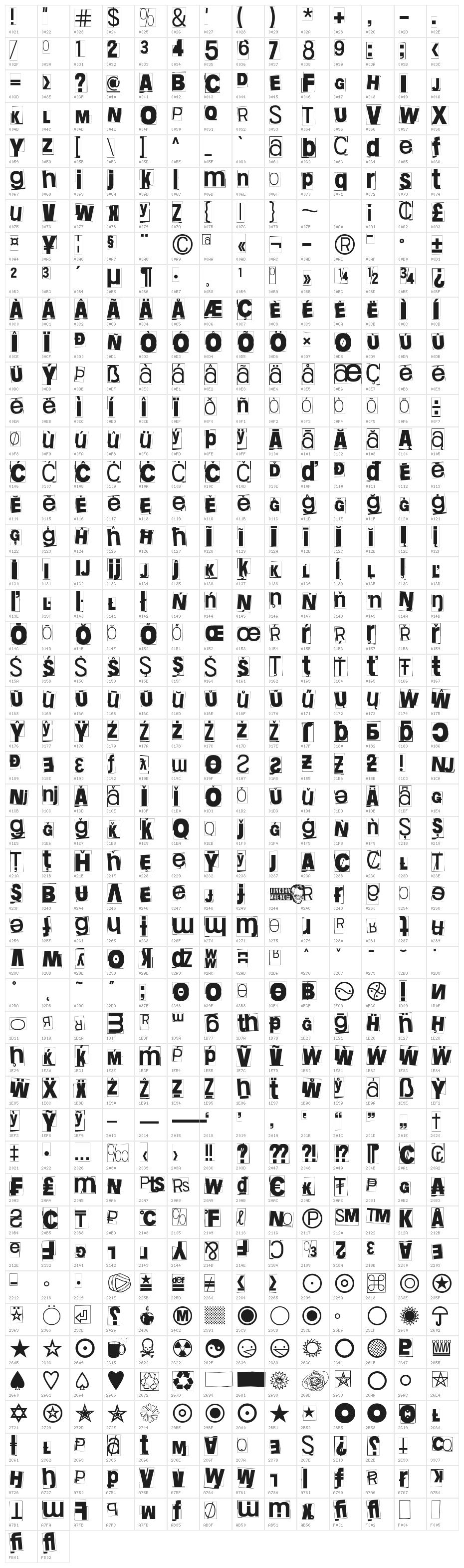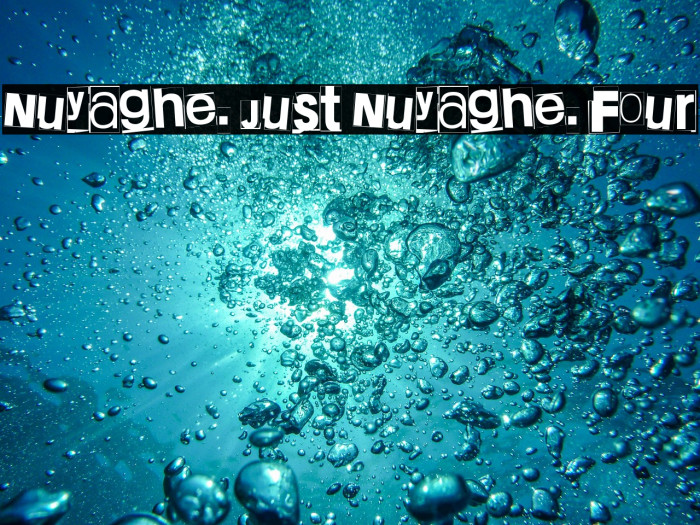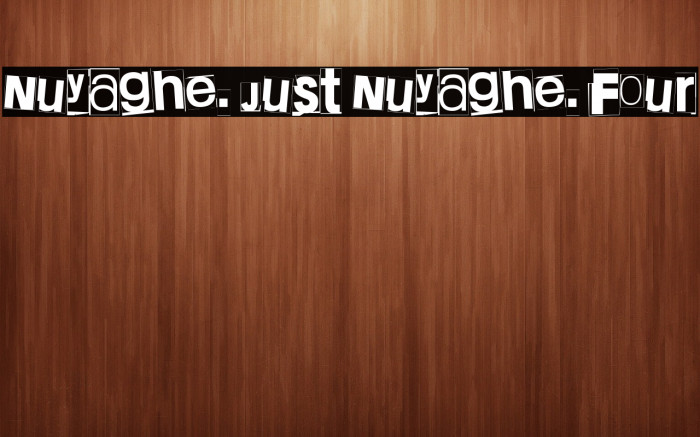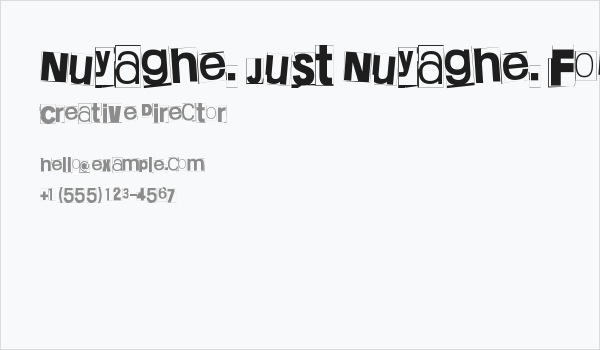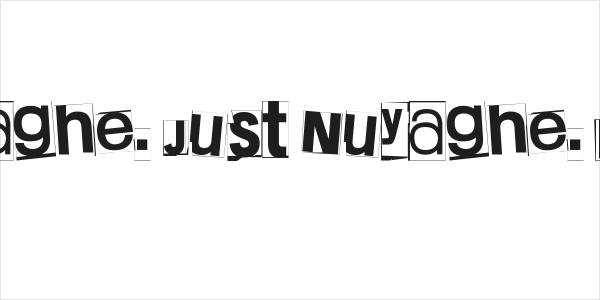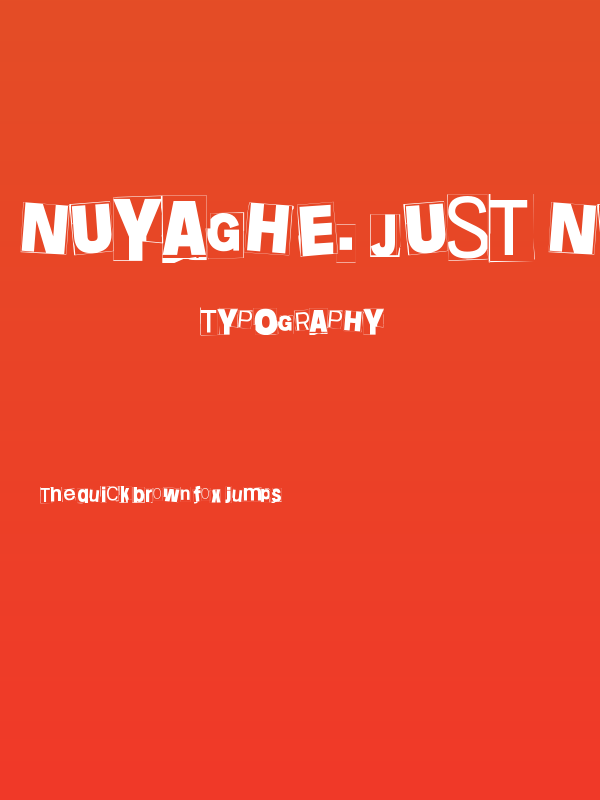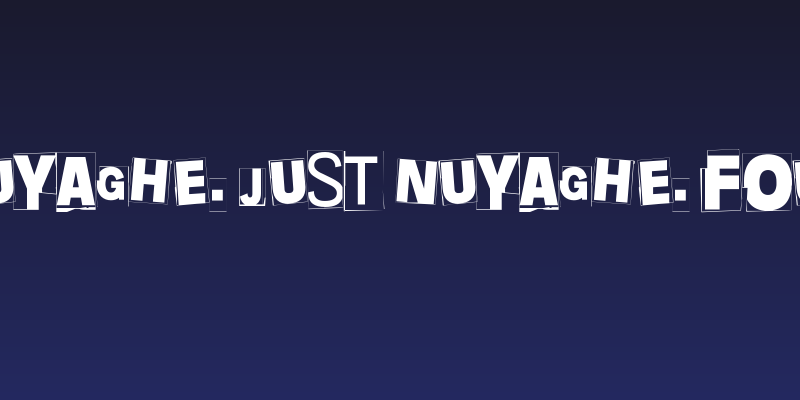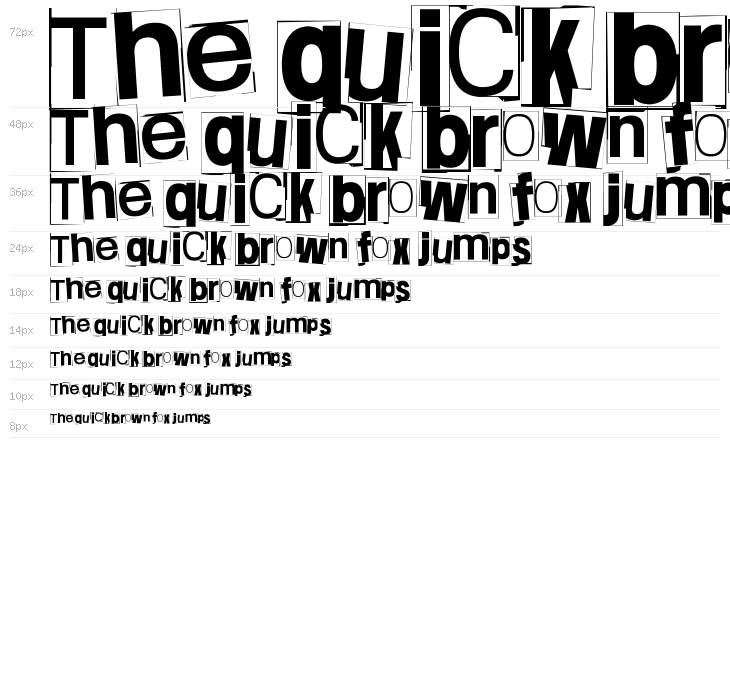
Nuyaghe. Just Nuyaghe. Four Font
Nuyaghe. Just Nuyaghe. Four Description
This font features a playful and eclectic design, reminiscent of letters cut from magazines or newspapers. Each character is uniquely styled, with varying angles and sizes, creating a dynamic and eye-catching appearance. The uppercase and lowercase letters, as well as numbers and special characters, are all distinct, contributing to a sense of randomness and creativity. The boldness of the characters ensures high visibility, making it suitable for attention-grabbing designs. The irregular shapes and varied alignments add to its quirky and artistic charm, making it perfect for projects that require a fun and unconventional look.
| Use Case | Headlines, Logos, Artistic projects |
| Proposed Projects | Ideal for posters, album covers, artistic projects, and any design requiring a bold, unconventional look. |